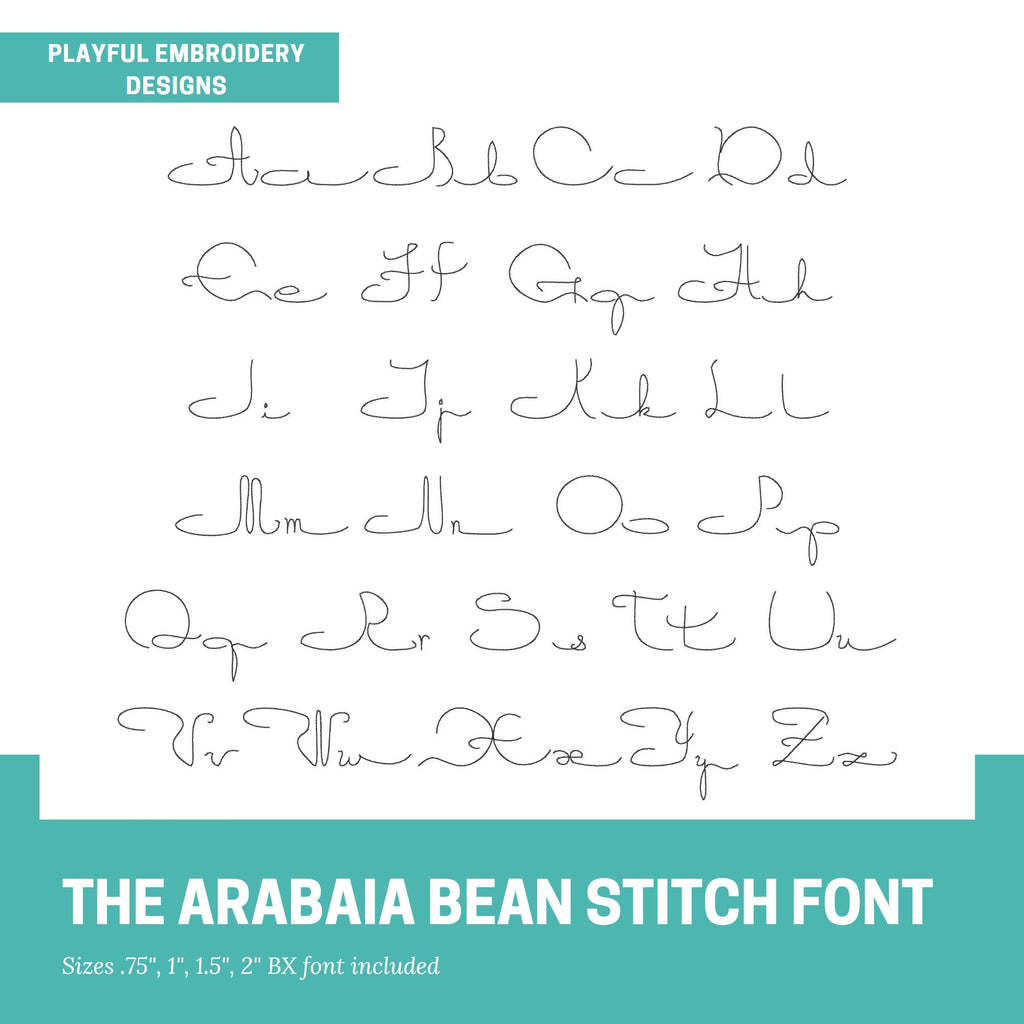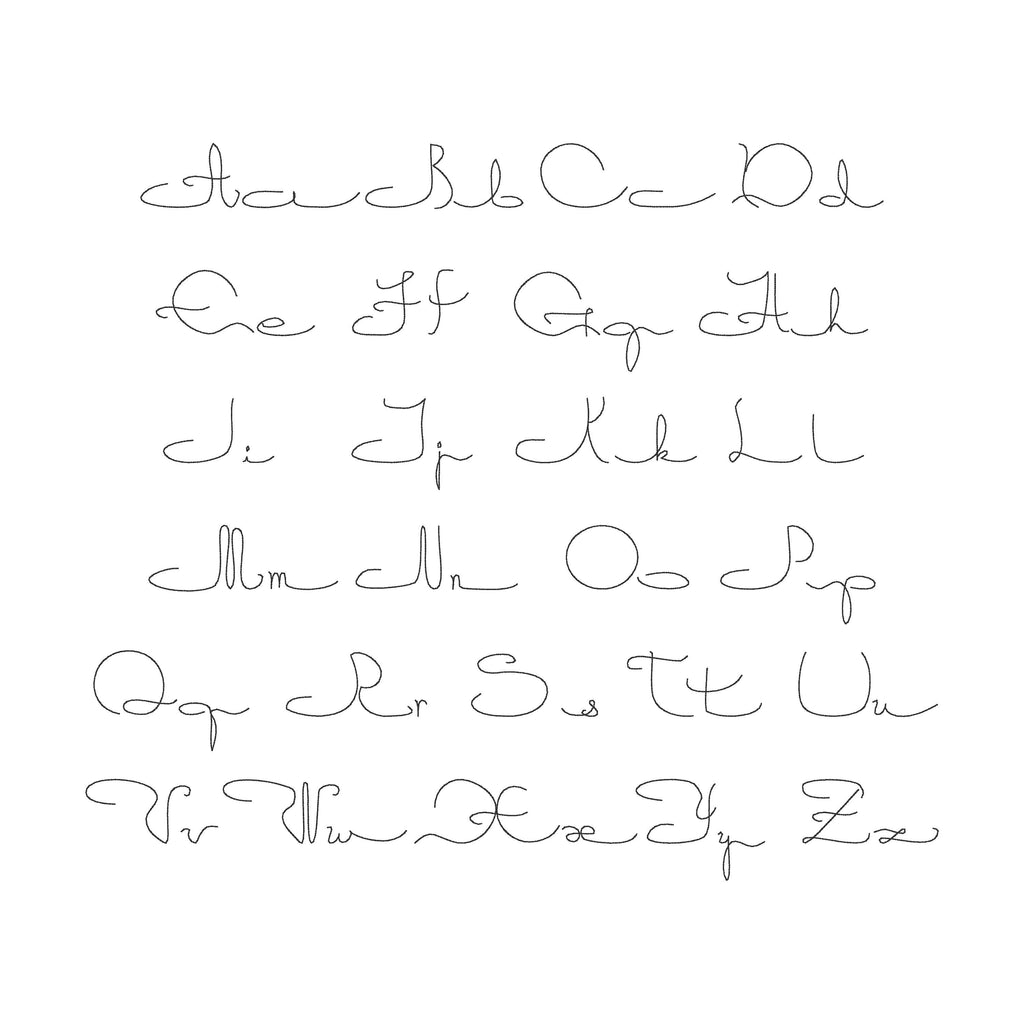
Introducing the Arabia bean stitch handwriting machine embroidery font. Long, script letters in a bean stitch style. Great for singe letter use or as a unique font.